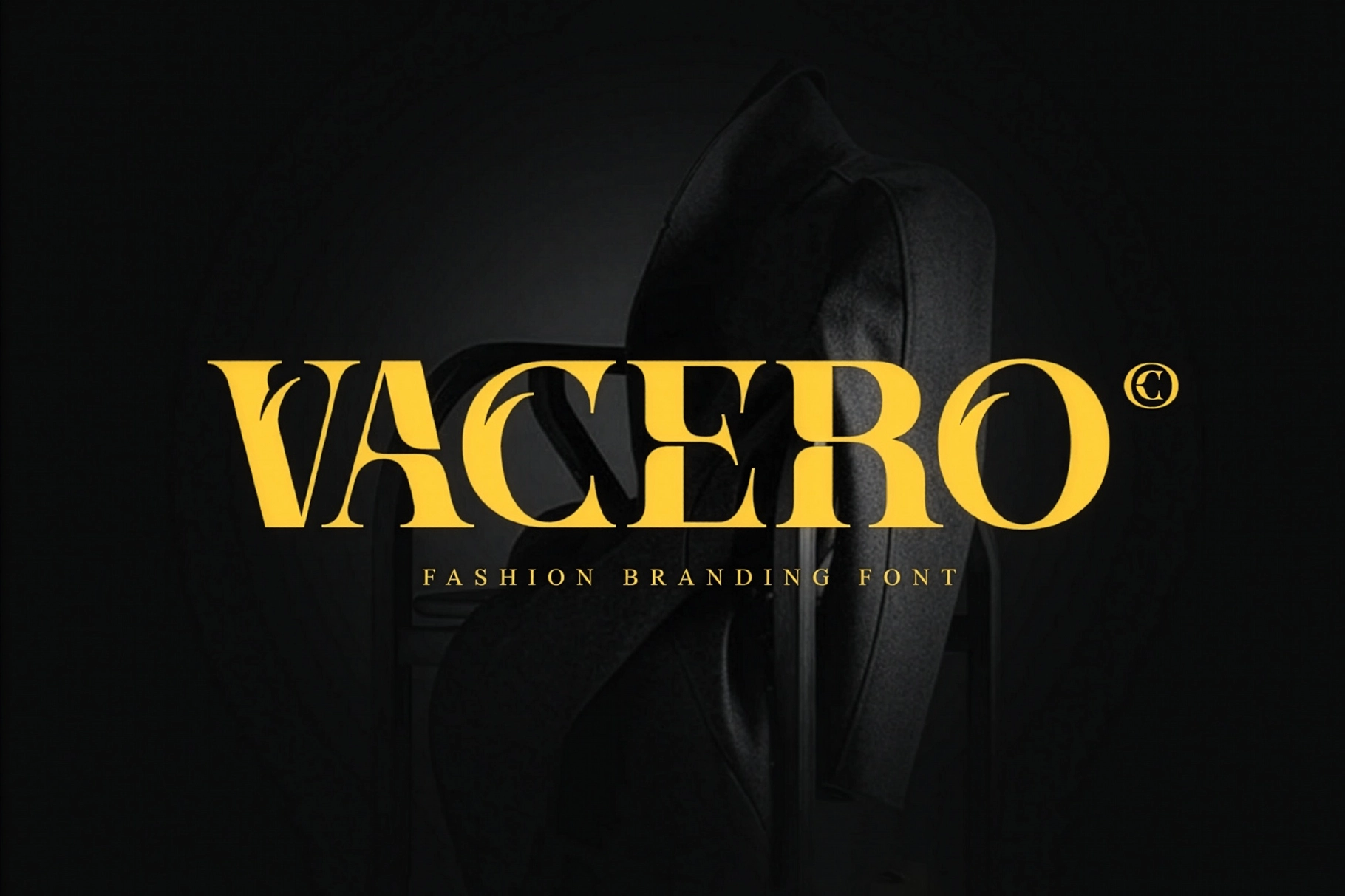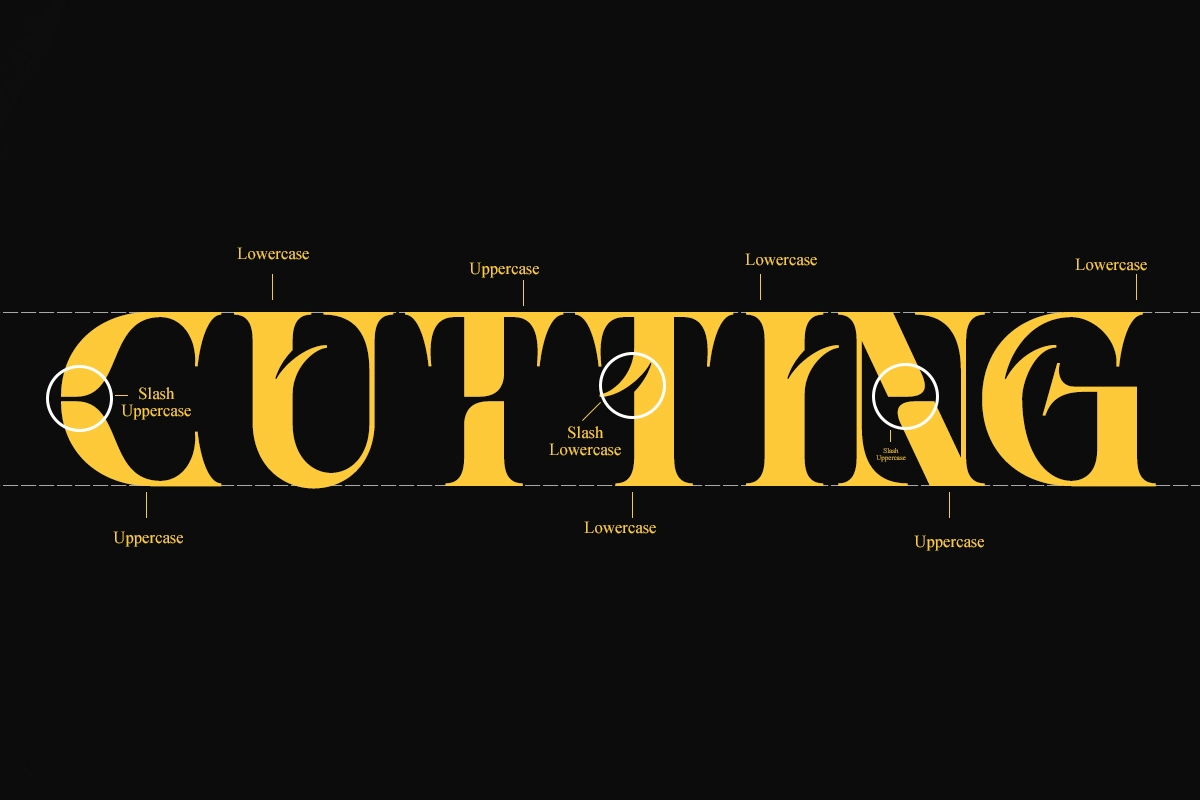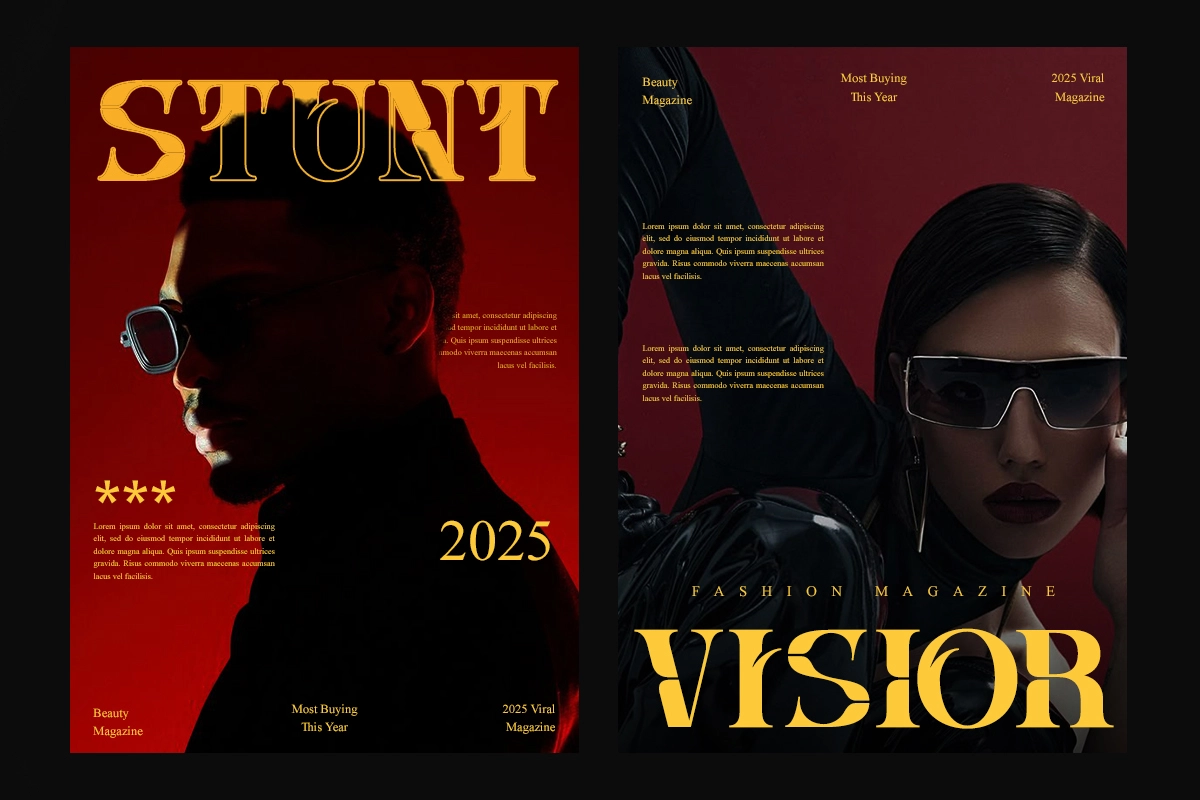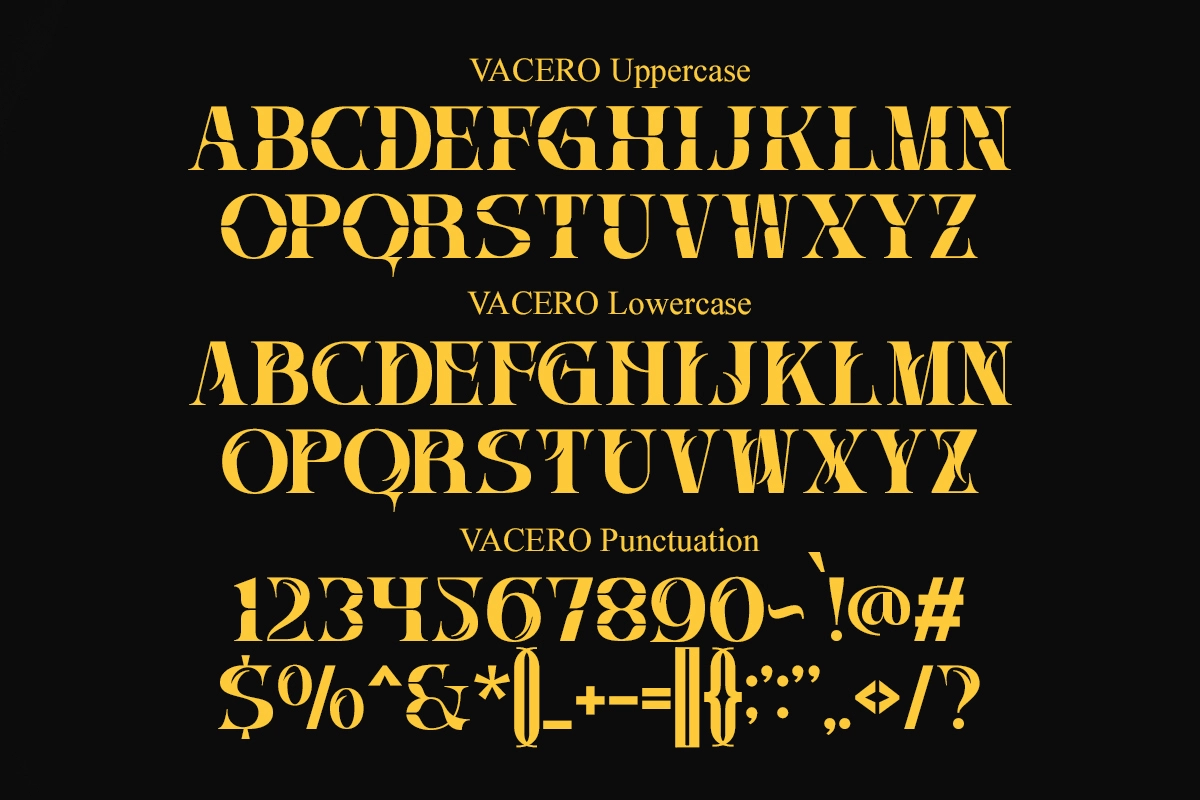
Vacero - Bold Slashed Serif Font
Vacero cuts straight into fashion-editorial territory: a bold serif font where certain bowls and stems get sliced clean through with a single diagonal blade, then patched back together in high contrast. The uppercase carries dramatic curves and ball terminals somewhere between engraved plaques and runway signage, while the matching lowercase reads as a second set of small caps instead of a true minuscule alphabet, keeping headlines rigid and confident.
Vacero works best set large and short — a wordmark, a masthead, a single cover line — where the slash-cut drama can breathe instead of disappearing into a paragraph. Use it for magazine mastheads and cover lines, boutique and beauty logotypes, runway invitations, perfume and cosmetics packaging, luxury social campaigns, editorial pull quotes, and more.